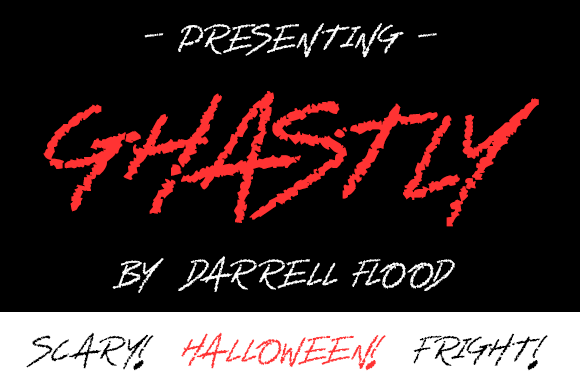
HomeScript FontsGhastly Font Script Fonts Ghastly Font FacebookXPinterestWhatsApp About Ghastly Font The Ghastly is a horror style font in a scratchy, unsettling style. Perfect for scary themes and Halloween! DOWNLOAD ON CREATIVE FABRICAThis font is sold and delivered by Creative Fabrica. Font Canyon may earn a commission if you buy through this link. People also explored Secret Recipe Honey Lemon Font Naava Font Spider Web Monogram Font Sandyakala Font Male Army Bella Canvas 3001 Shirt Mockup Romantic Austine Font Crawling Font Ballerina Font 295 0 TagsGhastly Font Previous articleCaramello FontNext articleMonatia Script Font LEAVE A REPLY Cancel reply Comment: Please enter your comment! Name:* Please enter your name here Email:* You have entered an incorrect email address! Please enter your email address here Website: Save my name, email, and website in this browser for the next time I comment. Personal Use Free Pridaem Cooper Personal Use Free Read more about this font Theobald Personal Use Free Read more about this font Numberpile Personal Use Free Read more about this font Vuldo Personal Use Free Read more about this font BLOG Exploring Font Trends Shaping Communication in the Digital Era Fonts, like all design elements, are subject to trends. They play a crucial role in communicating a brand's personality,... Top 10 Handwritten Fonts That Elevate Your Designs How to Install and Use Fonts on Windows, macOS, and Web Projects Free vs Paid Fonts: Why Investing in Premium Fonts Is Worth It